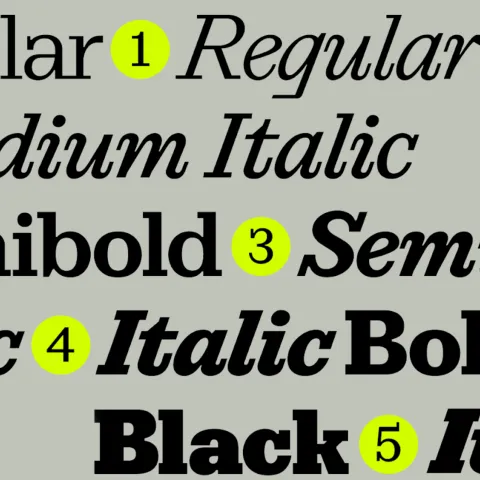
Kristolit Variable Font: The Perfect Blend of Serif Tradition and Modern Tech
Explore Kristolit’s modern serif with variable font, weights and Cyrillic support, a typeface blending classic elegance with technology.
In the world of typography, few fonts balance tradition and modern technology as gracefully as Kristolit Variable. Created by Sasha Denisova, this serif typeface draws from Scotch Roman roots while adapting to the demands of contemporary design. From editorial layouts to branding, Kristolit offers a fresh, flexible solution that retains historical sophistication while embracing technological prowess.
A Serif Rooted in History
Kristolit is inspired by Scotch Roman typefaces, popularized in 19th-century Britain and the United States. Known for their high contrast and geometric serifs, these fonts were primarily used for body text, delivering readability and character. Sasha Denisova, a Belgrade-based art director and the mind behind Kristolit, approached this design with a clear objective: to combine the structure of historical serif fonts with a distinct modern edge, adding flexibility through its variable font format.
Variable Features and Modern Applications
Kristolit is more than just a classic-inspired serif. It’s a variable font, designed to move seamlessly across various applications, from digital screens to print. This typeface provides both regular and italic styles, ranging from a subtle book weight to a bold black, allowing designers to play with weight and contrast. Kristolit’s variable nature enables precise control over each element, optimizing for both aesthetic appeal and functionality.
The font is crafted with both designers and typographers in mind. For example, Kristolit offers weight variations that adapt to different projects while supporting all major Latin-based languages, alongside Cyrillic for Serbian, Russian, Ukrainian, and Belarusian. This broad linguistic support makes Kristolit a versatile tool for a global audience.
Key Design Features
Kristolit stands out for its unique balance of elegance and structure. Below are some notable features that showcase its distinctive design:
1. Geometry: The typeface’s sharp geometric lines lend a modern edge to its classic roots, making Kristolit ideal for a wide range of typographic expressions.
2. Moderate Contrast: With a balanced contrast in its weight range, Kristolit is suitable for both headlines and body text, bringing adaptability to various layouts.
3. Closed Apertures: These help maintain a modern, rigid character that feels grounded and structured, a nod to its technological inspiration.
4. Vertical Axes: Kristolit’s vertical design is evident in all letterforms, adding to its strong, upright posture.
5. True Italics: With an italic style that feels handwritten, Kristolit’s italics maintain a narrower, more expressive tone, further enriched by an extreme slant.
Simplifying for Robustness
During the design process, Sasha found inspiration in Figgins Foundry’s Antique slab serif fonts. Studying these historical typefaces allowed her to refine Kristolit’s bolder weights by reducing contrast and simplifying forms. This approach created a cleaner, more robust typeface that maintained clarity and elegance in even the heaviest weights.
The italic version received similar attention. Sasha’s goal was to preserve the font’s historical feel, especially in Cyrillic, where slanted characters reflect calligraphic influences. These choices give Kristolit’s italics a unique balance between modern readability and a nod to historical script styles.
Perfect for Branding and Editorial Use
Kristolit’s adaptability makes it a go-to typeface for branding, editorial layouts, and digital interfaces. Its modern serif structure brings a professional look to corporate identities, while the italic offers a softer, more expressive touch for creative projects. The design’s tech-inspired geometry blends well with editorial environments, making it equally suitable for digital and print media.
A Type Designer’s Take on Kristolit
Reflecting on her process, Sasha Denisova says, “Kristolit started as a challenge to design a complete Latin character set in a week, but it evolved into a project that balanced structure and elegance. The journey was about finding that balance between historical Scotch Roman aesthetics and a design language that feels both timeless and modern.”
Explore Kristolit
Variable font and typography artifacts
Specimen of Plain and Ornamental Types. Foundry of V. & J. Figgins, 1845.